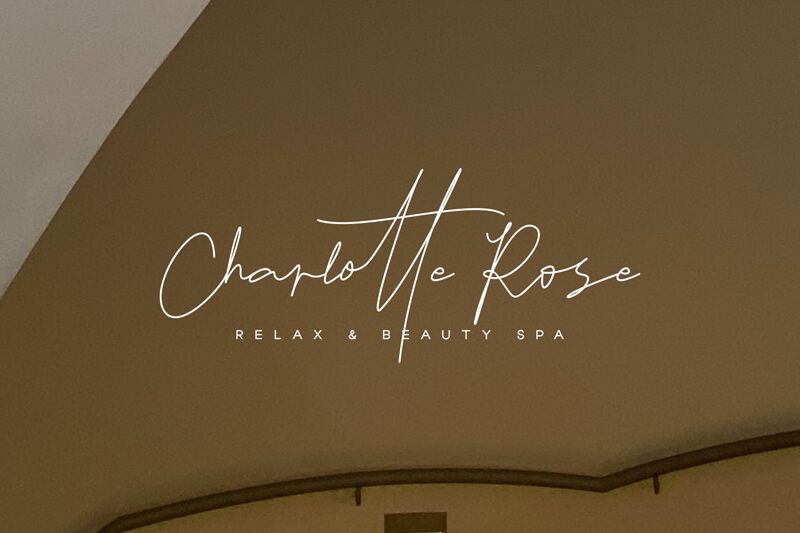
Oshawa, designed by Intuisi Creative, embodies the charm of personal touch in its extra-light handwritten style. The delicate strokes convey an air of elegance and intimacy, reminiscent of fine penmanship. With its fluid continuity and distinct character forms, Oshawa offers a blend of sophistication and whimsical flair that can elevate the visual narrative of any creative project.
Whether applied to branding materials, wedding invitations, or editorial designs, this font's aesthetic appeal lies in its ability to impart a sense of individuality and grace. Its lightness suggests versatility-capable of making a subtle statement without overwhelming the design space. Embrace the bespoke beauty of Oshawa for projects that require a font with both personality and finesse.